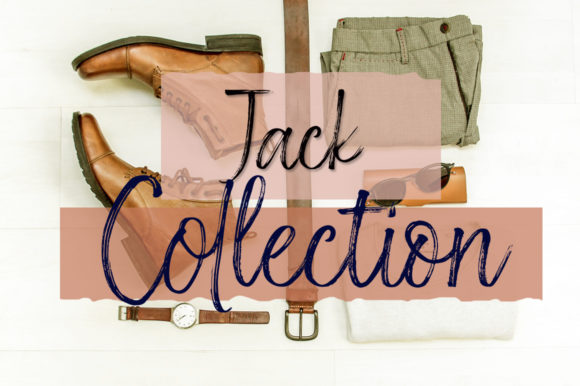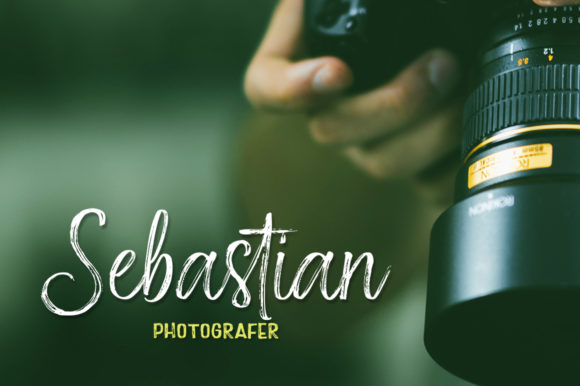
Ringster Font
db-ku.com - Script & Handwritten -- Ringster results out of a stunning pairing of a brush pen and pencil that makes it look incredibly endearing and authentic. Use this gorgeous and unique handwritten font to bring any DIY project to life!